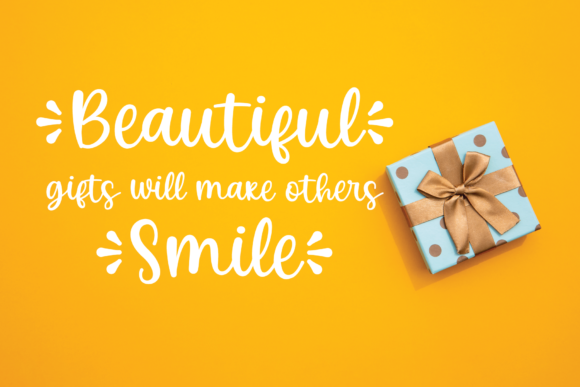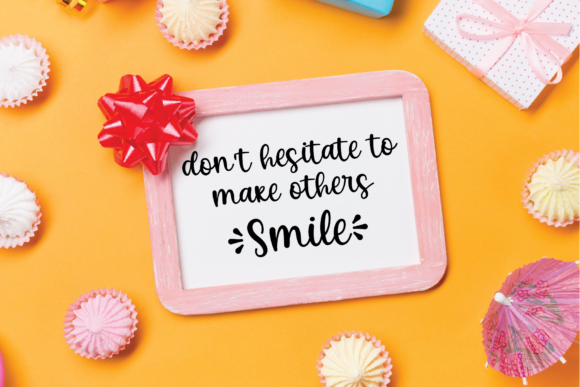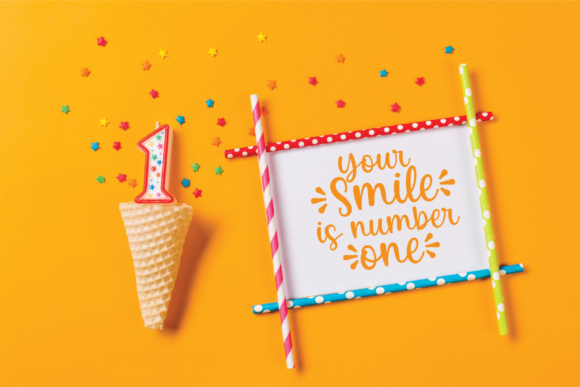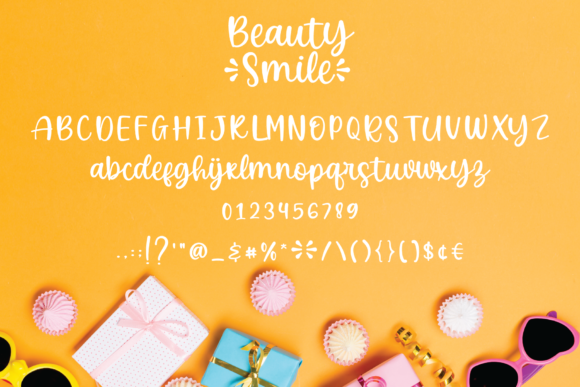
Beauty Smile Font
About Beauty Smile Font
Beauty Smile is a sweet, round lettered and colorful handwritten font. It embodies fun and playfulness. Add it to your most creative ideas and notice how it brightens them up!